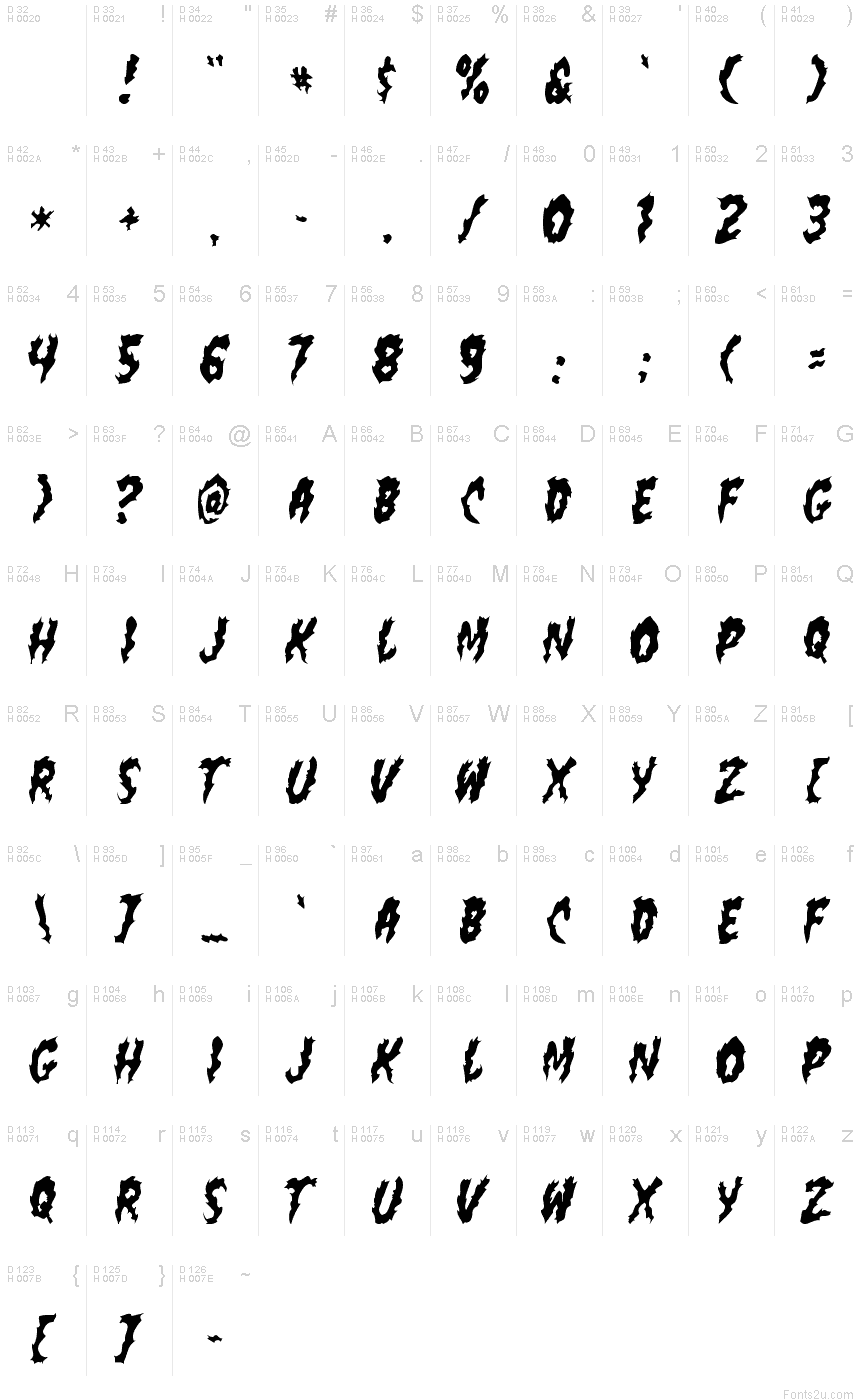
flamin poo
Flamin Poo font by Paul Dumbell is a free distorted scary display typeface that looks like letters carved from jagged tongues of fire. Each character twists and spits outward, with blobby inner cuts and charred-looking edges that feel smoky and unstable, like something just crawled out of a bonfire. The tight, irregular rhythm gives words a restless, crawling motion that pulls the eye in and doesn’t let go.
Using Flamin Poo, headlines instantly feel loud, unhinged, and a little dangerous, so it shines on horror movie titles, Halloween flyers, metal or punk band logos, creepy game covers, escape-room branding, and edgy merch. This free font works best at large sizes where every warped contour can burn through the background; pair it with a plain, compact sans serif for body text so the wild shapes stay readable and center stage.